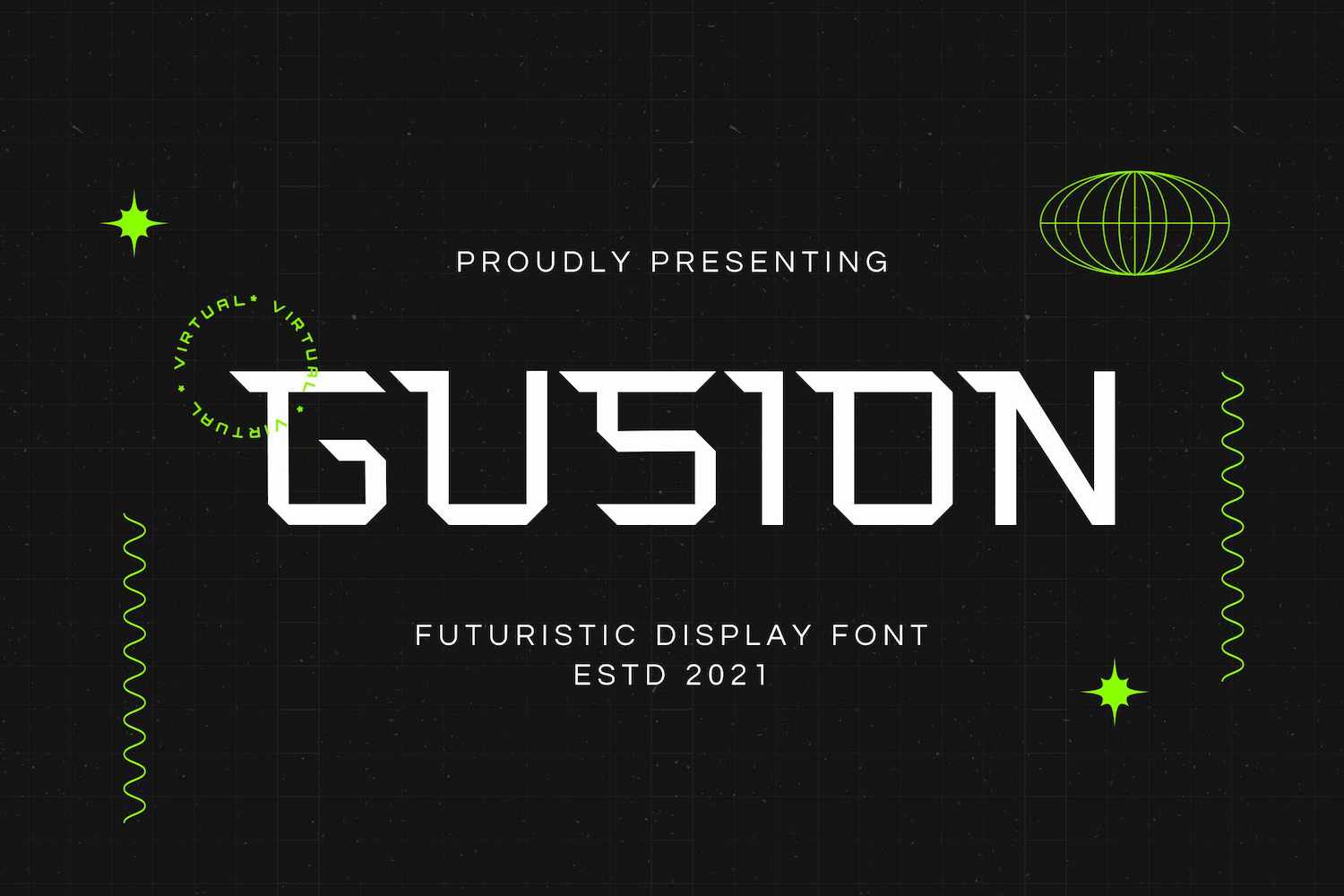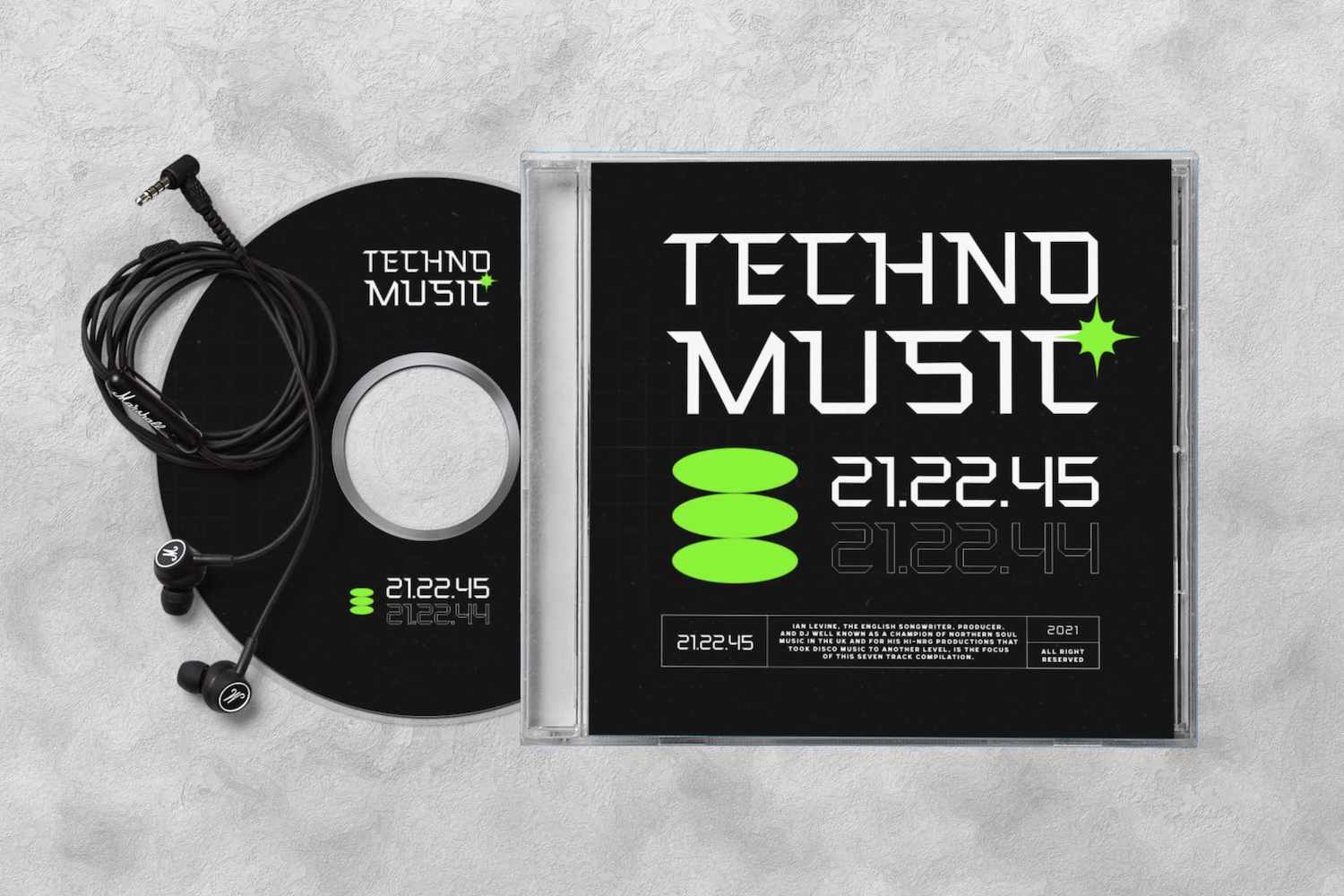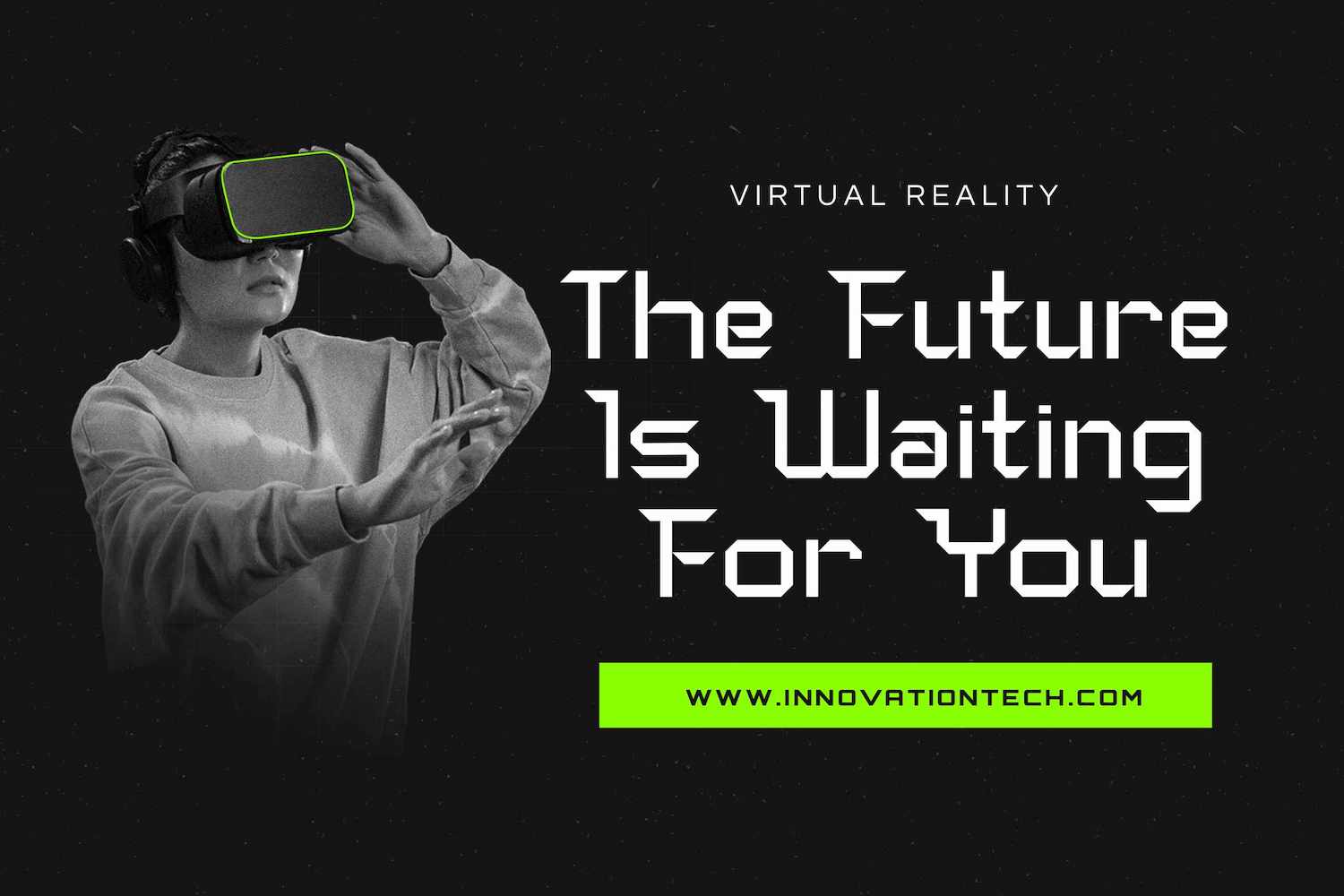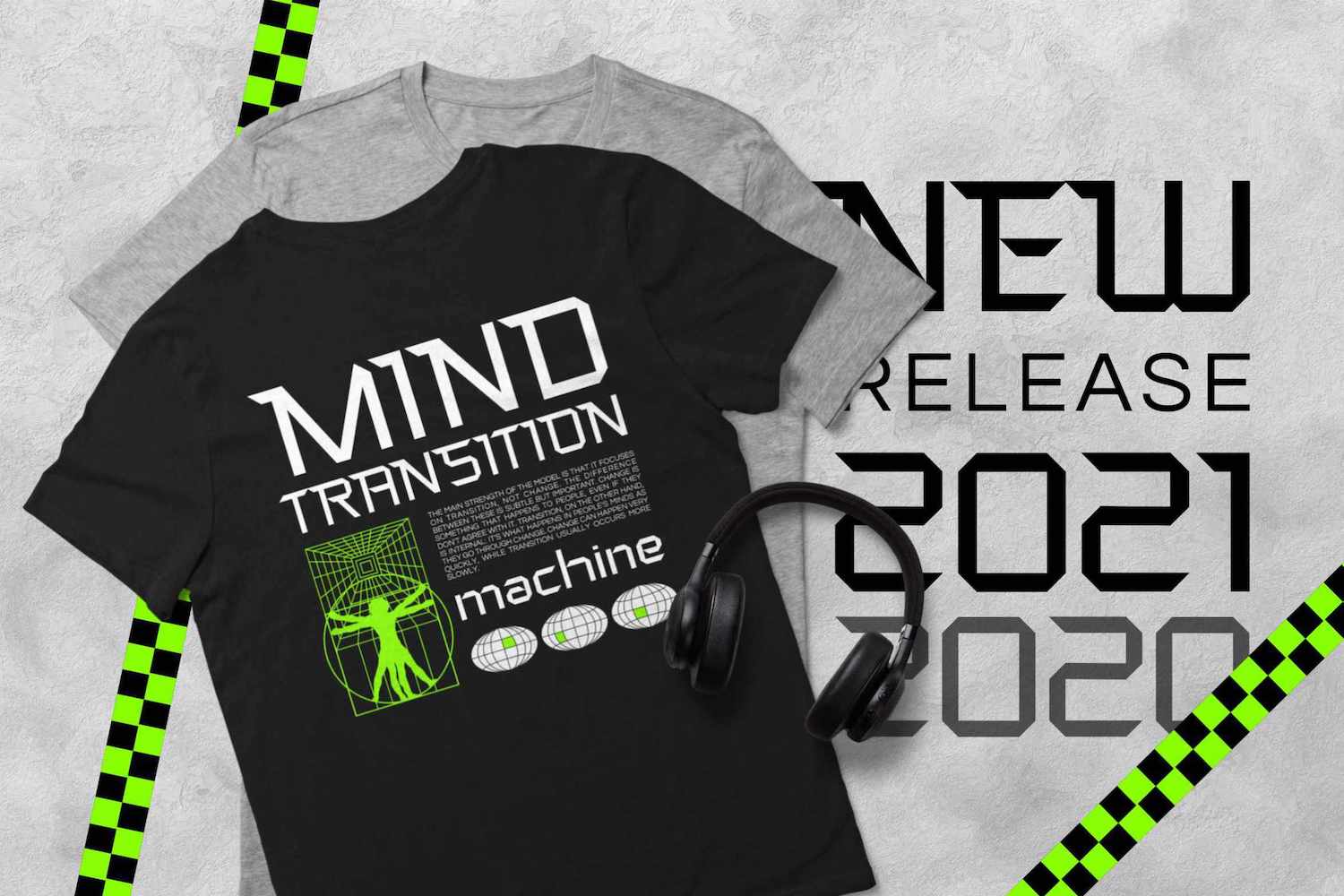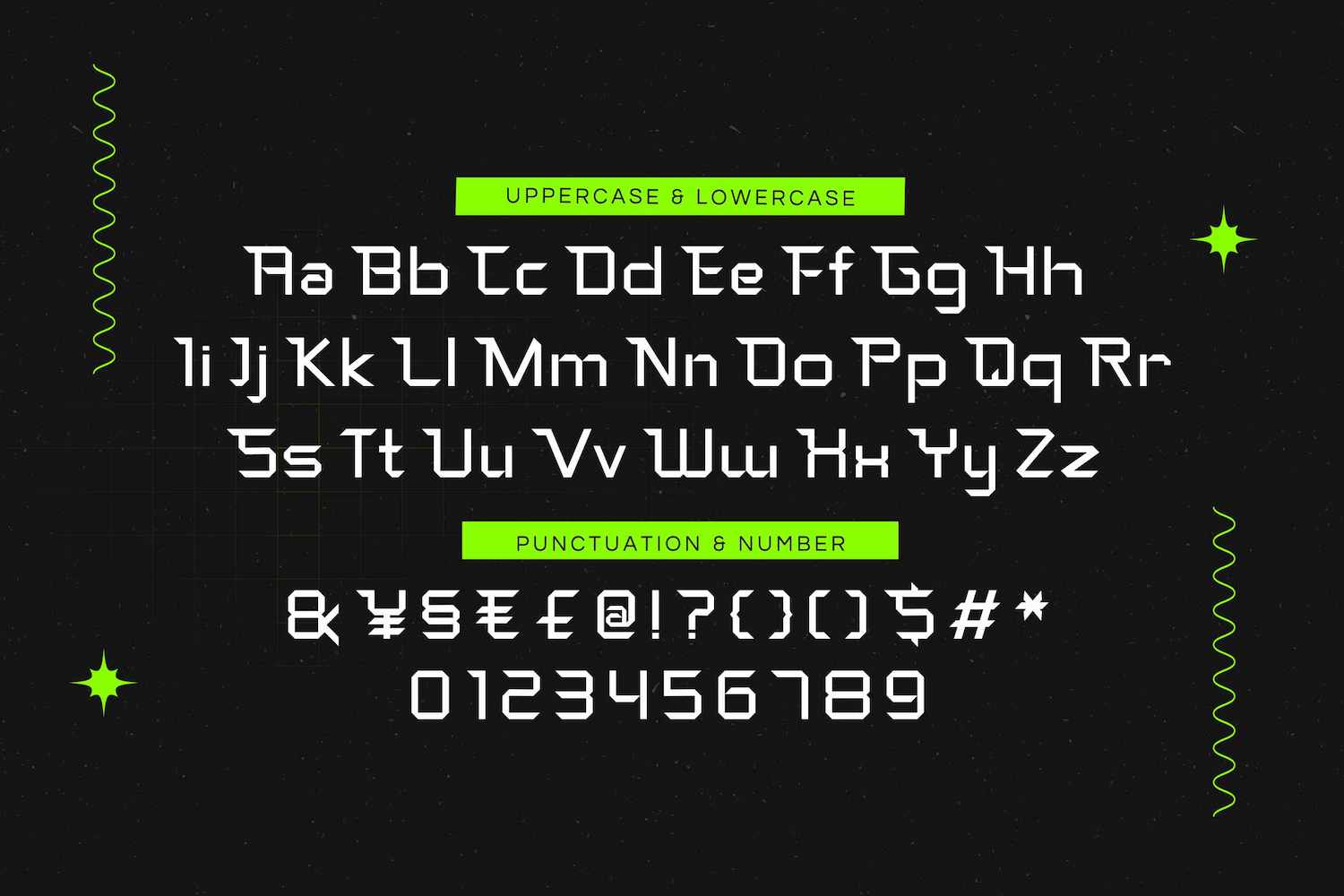
Gusion is a futuristic display font designed for high-tech aesthetics, virtual environments, and modern creative projects. With its geometric letterforms and sharp angular cuts, Gusion offers a dynamic and digital-forward feel perfect for cyberpunk, virtual reality, and tech branding. The clean yet edgy structure of each character makes it highly suitable for striking titles, posters, or digital interfaces.
This font includes uppercase and lowercase letters, full punctuation, numerals, and currency symbols, ensuring wide versatility across branding and editorial needs. Whether you’re designing for electronic music albums, VR promotions, or techwear fashion, Gusion gives your visuals a bold and futuristic identity.
Gusion